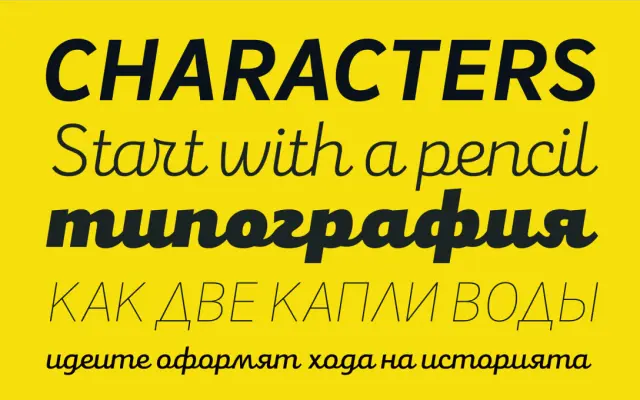
Mixa
Fontfabric · Ani Dimitrova · 2016
A neo-grotesque with a slanted script character built into the lowercase, creating a dual all-caps/mixed-case personality across eight weights.
Designed by Ani Dimitrova and released in 2016, Mixa uses a neo-grotesque skeleton as its base while infusing the lowercase with a subtle slanted script quality, so all-caps settings read clean and clinical while mixed-case reveals a handwritten warmth. The eight weights from Thin to Black give it range across branding, packaging and editorial contexts. OpenType features include ligatures, stylistic alternates and discretionary ligatures, with coverage across Extended Latin and Cyrillic.
Mixa is built on a neo-grotesque sans-serif structure, but its lowercase letters incorporate a slanted script quality, creating a dual personality between all-caps clarity and expressive handwritten forms.